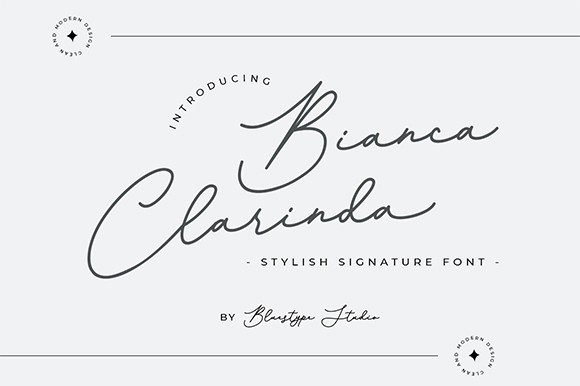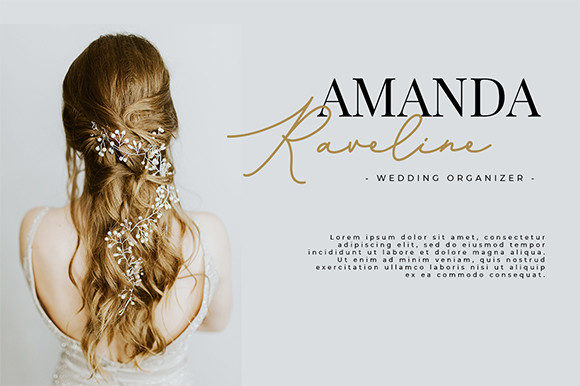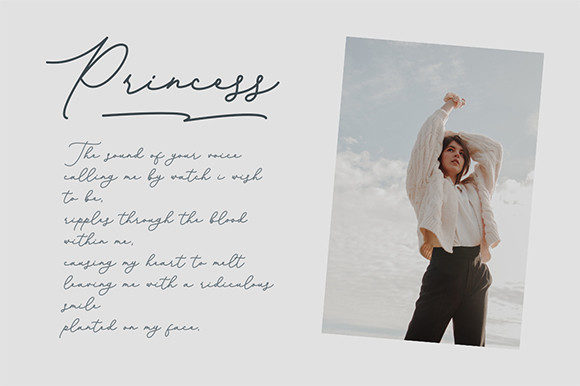
About Bianca Clarinda Font
Bianca Clarinda is a delicate, refined script font that emanates sophistication and elegance. Its stylish alternates and ligatures make this font the perfect match for any project.